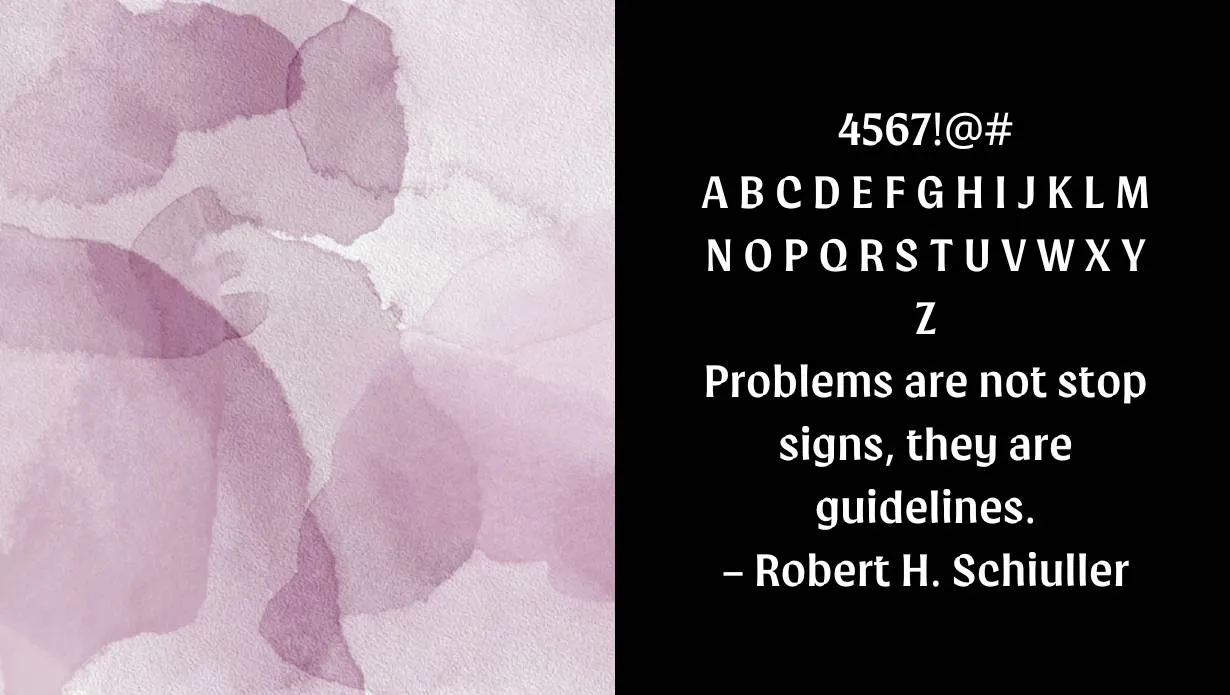
Bojes Font is a display typeface created by Bojesen in 2004. The font was designed to be used for both digital and print media. This Font is available in two different styles: Regular and Bold. The Regular style is ideal for body text, while the Bold style is more suited for headlines or titles.
Bojes Font Family